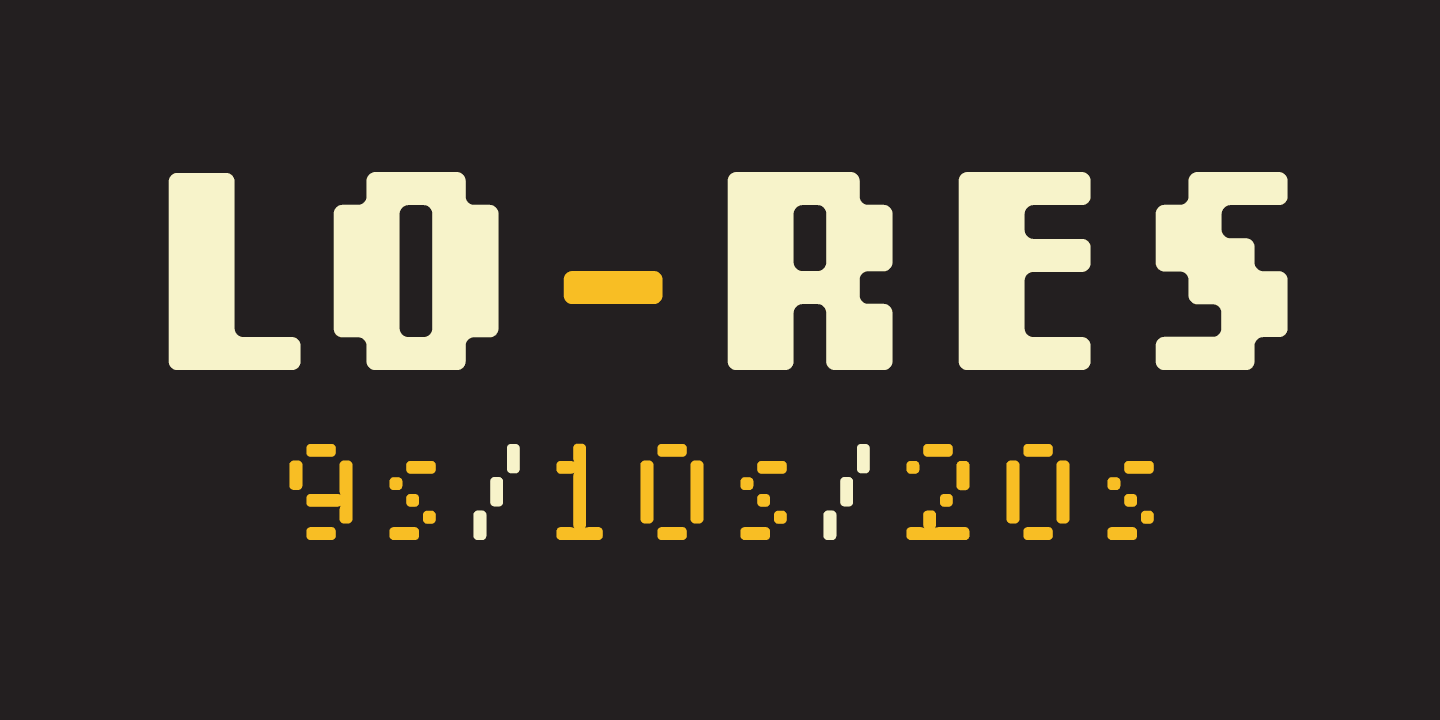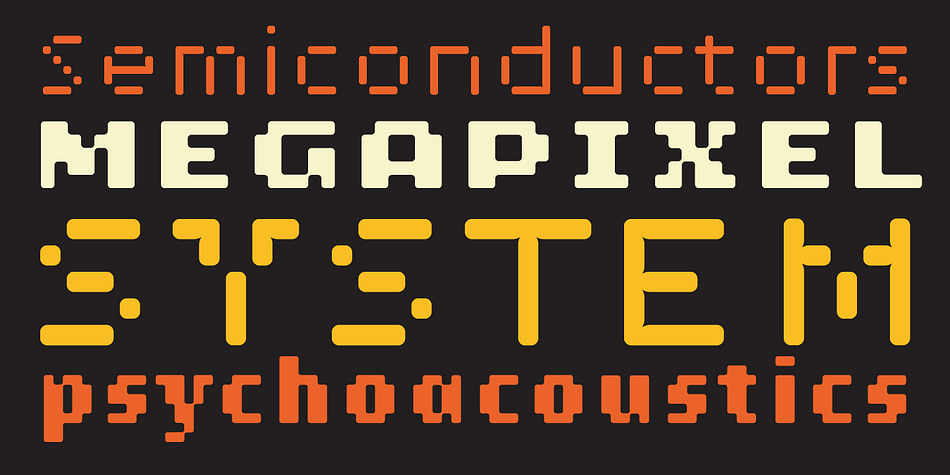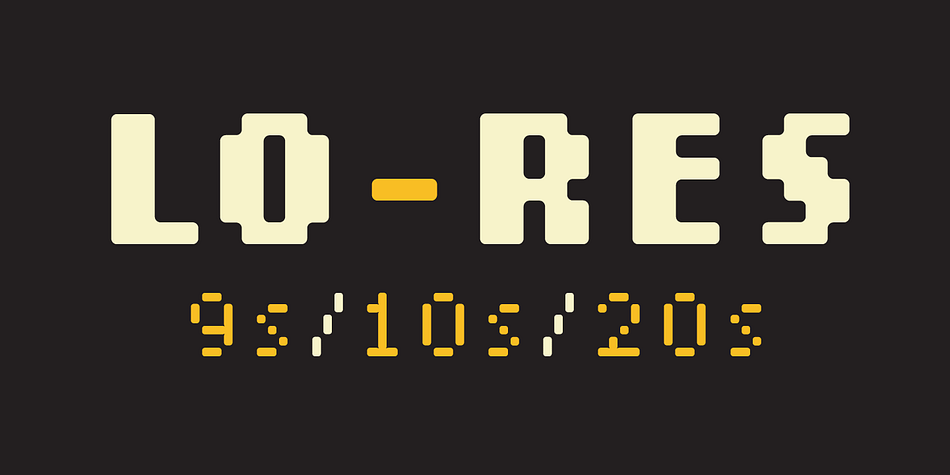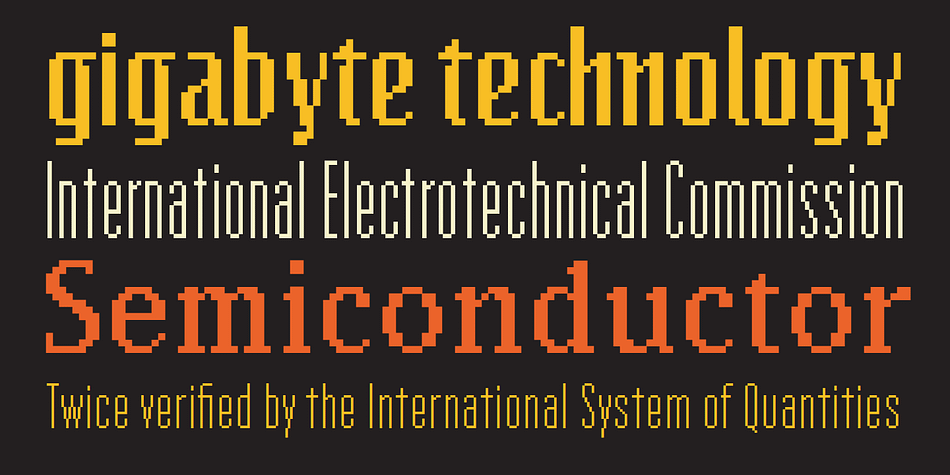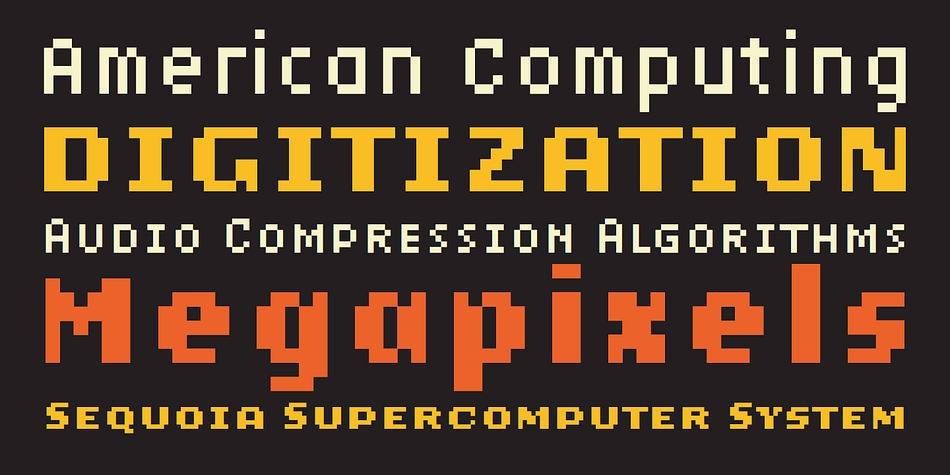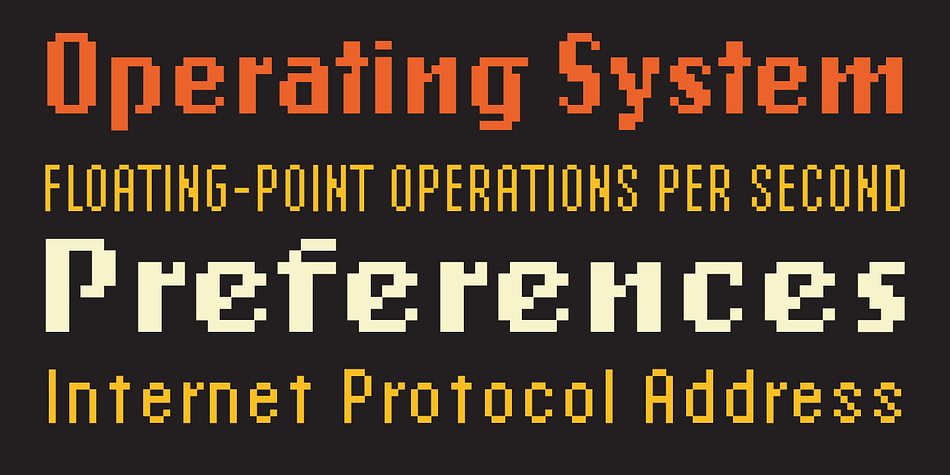
Designed by Zuzana Licko, Lo-Res is a pixel font family. This typeface has twenty-five styles and was published by Emigre.
The Lo-Res family of fonts is a synthesis of pixelated designs, including Emigre’s earlier coarse resolution fonts, as well as bitmap representations of Base 9. It replaces the preexisting Emigre, Emperor, Oakland and Universal families and groups these related bitmap designs under one family name in the font menu, thereby simplifying their naming. The Lo-Res fonts also offer technical improvements, including a more complete character set, more consistent character shapes among styles and weights, as well as improved alignment among the various resolutions.